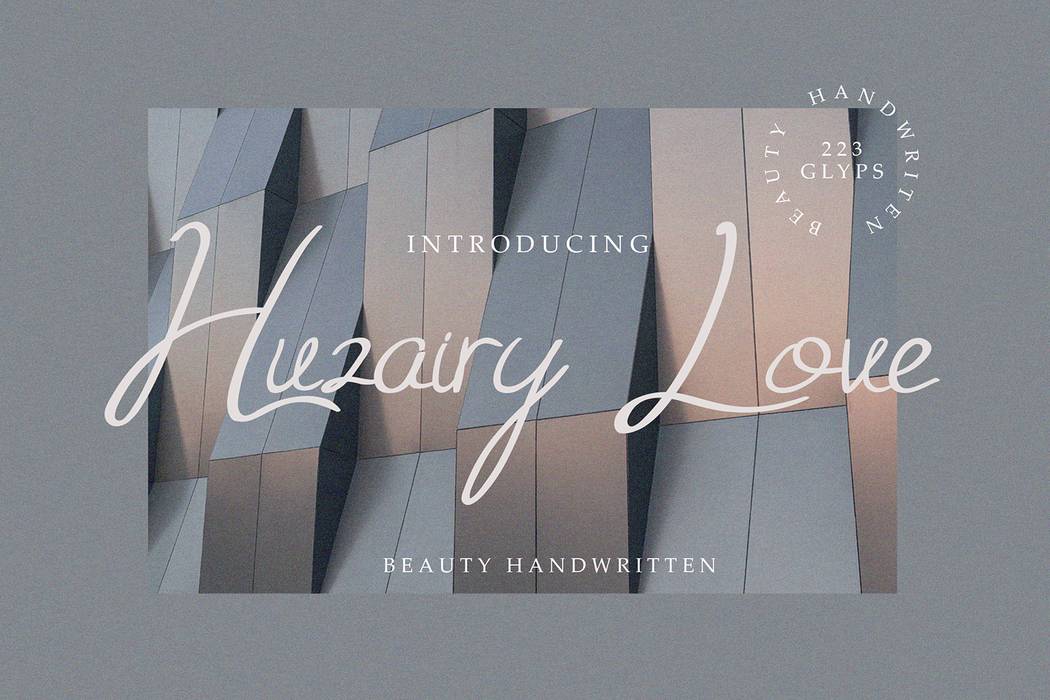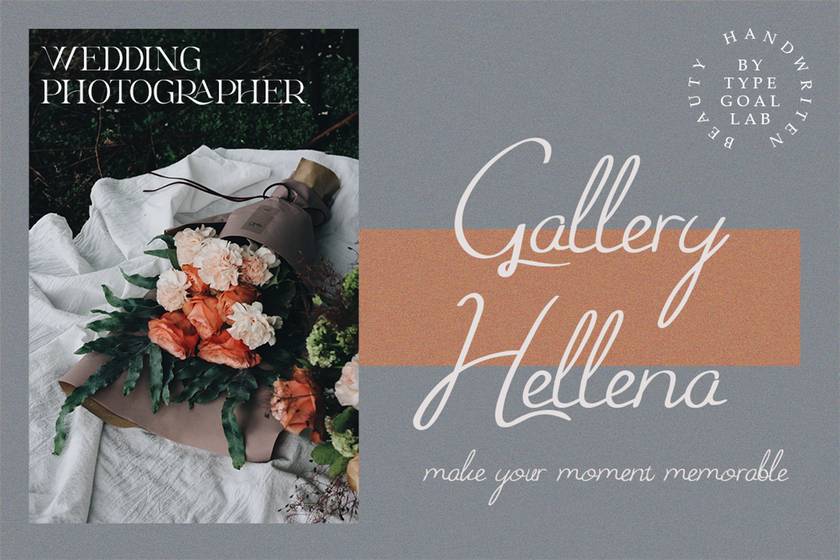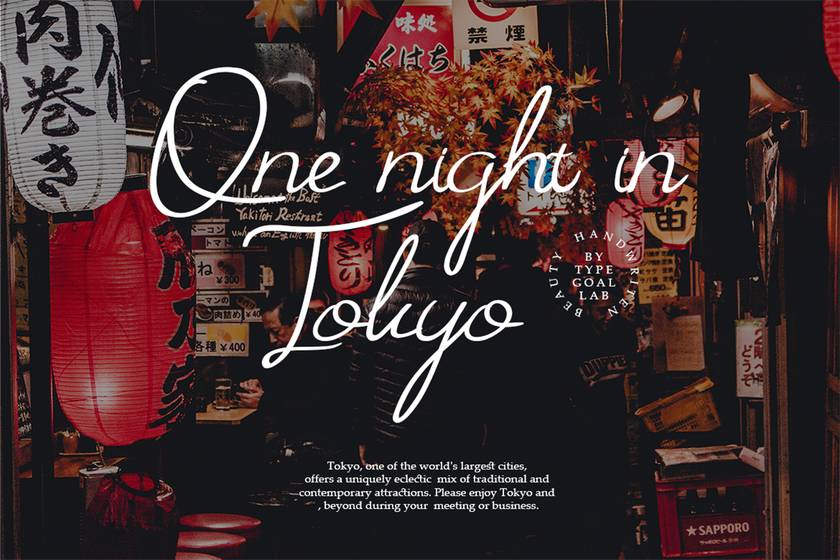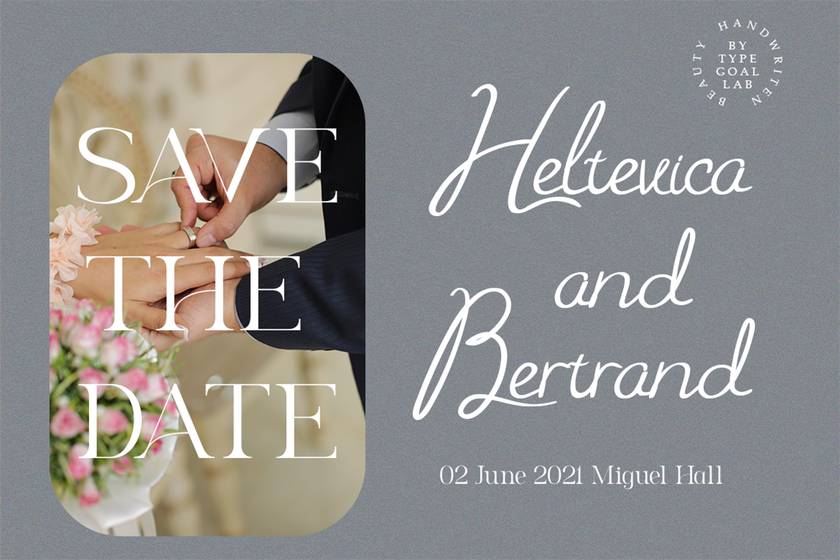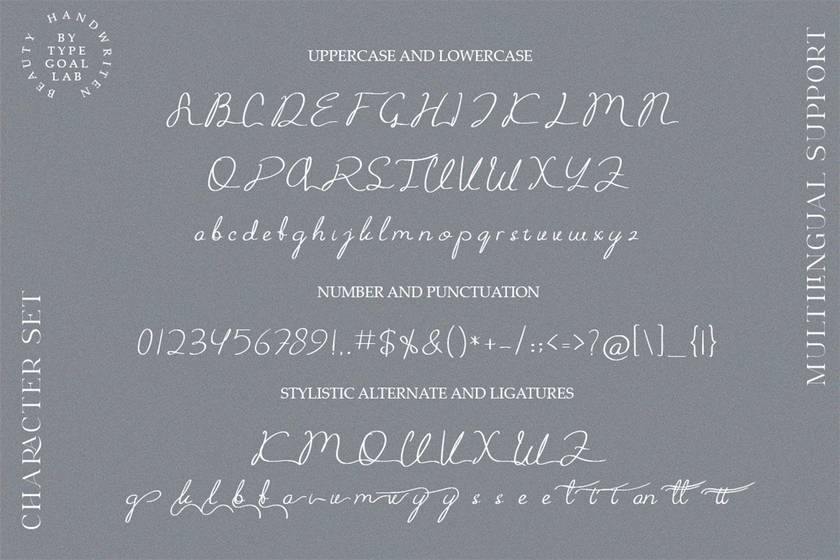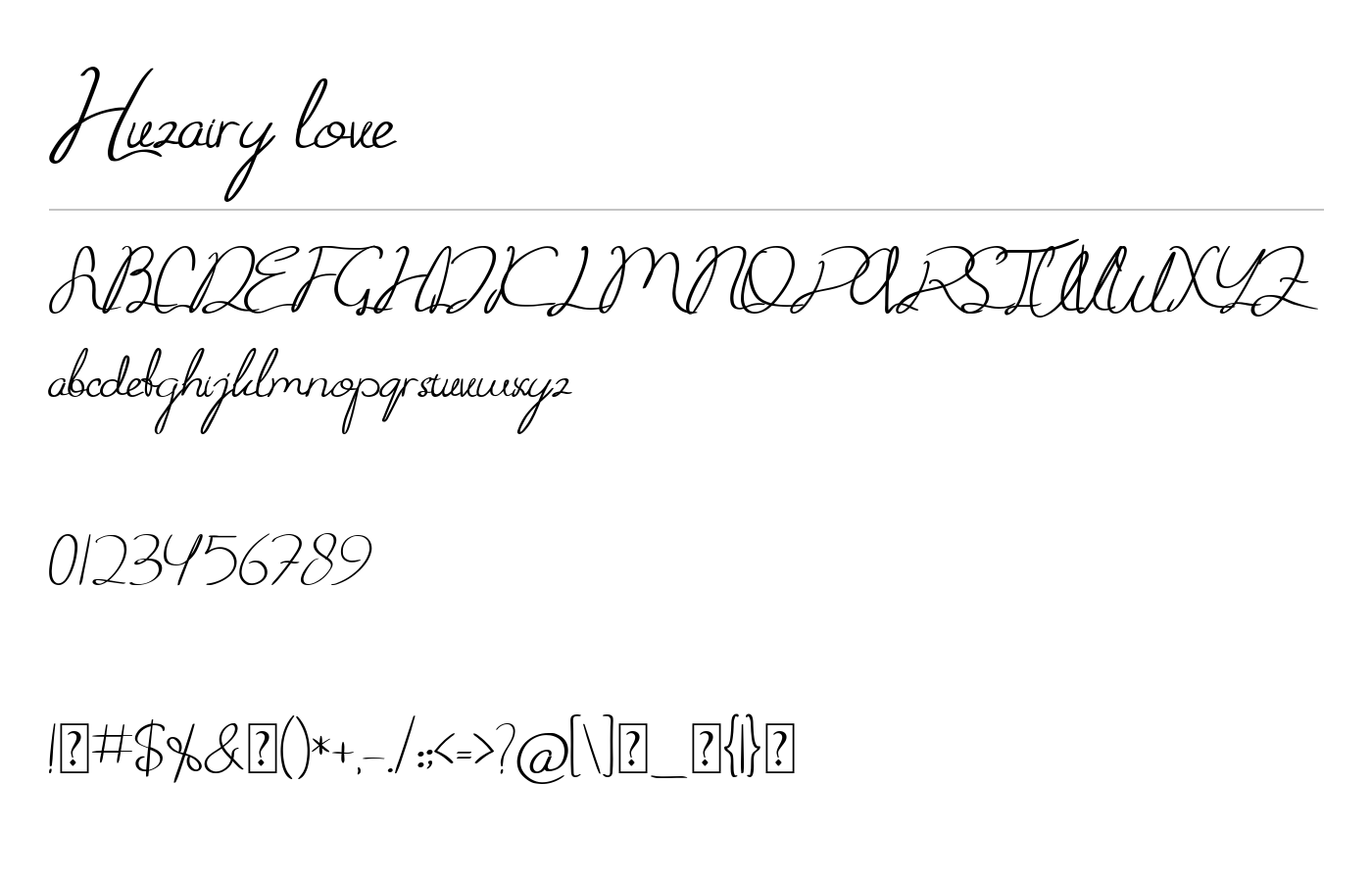
Huzairy Love is a delicate, script-style font featuring elegant, flowing letterforms with a handwritten feel. Its thin, graceful strokes and tall, slender characters evoke a romantic and sophisticated mood, making it ideal for invitations, branding, and decorative headlines where a personal, stylish touch is desired. This font works best in settings that call for elegance and intimacy, such as wedding materials, fashion logos, or boutique packaging.
Huzairy Love Font
About Huzairy Love Font
| Font family | Huzairy Love Font |
| Release date | 2019-12-08 |
| Designer | Typegoals labs |
| Trademark | Elevencreative |